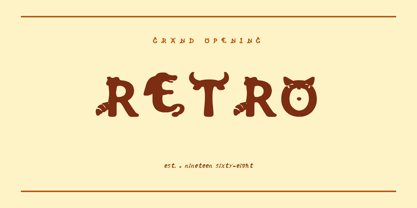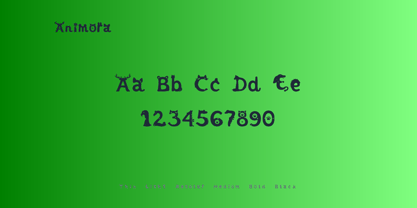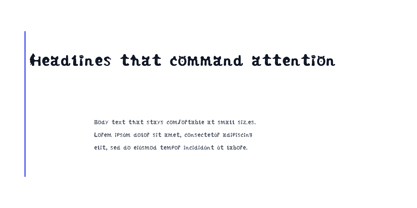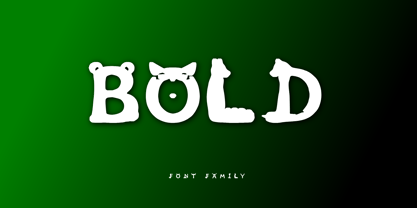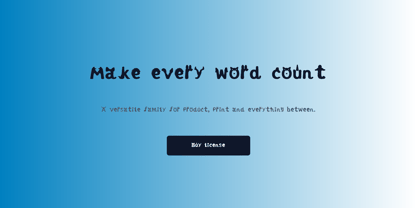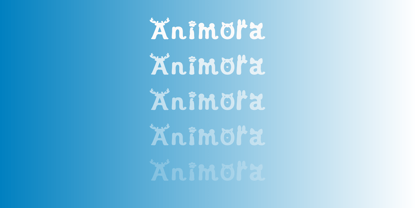
Animora
Die Schriftfamilie Animora wurde von Ayman Hafez entworfen und von Qira veröffentlicht. Animora enthält 1 Stile. Mehr über diese Familie
Animora is a bold and expressive display font inspired by the beauty, diversity, and untamed spirit of the animal kingdom. Blending organic curves with strong, confident letterforms, it captures the essence of wildlife while remaining highly legible and versatile. Whether you're creating branding, logos, packaging, posters, apparel, children's designs, or adventure-themed projects, Animora adds a natural, energetic, and memorable character to every design.
Designer: Ayman Hafez
Foundry: Qira